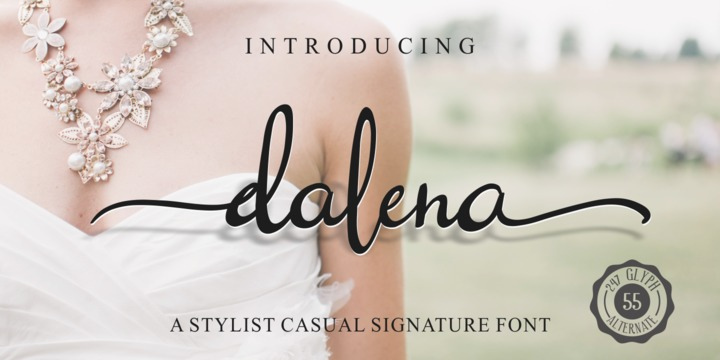
Dalena Font
Dalena Font is perfect for elegant lifestyle brands, sophisticated wellness centers, graceful beauty services, refined personal coaching, luxurious feminine boutiques, and upscale women's lifestyle magazines. Its refined character makes it ideal for sophisticated spa retreats, elegant event planning services, graceful dance studios, refined jewelry brands, luxurious skincare companies, and any project requiring graceful sophistication with contemporary femininity and elegant lifestyle appeal.
This font is exciting because it captures the essence of refined elegance and sophisticated femininity while delivering exceptional functionality for brands seeking to communicate grace, quality, and the kind of sophisticated lifestyle that modern women aspire to achieve. The elegantly crafted letterforms flow with natural beauty and confident sophistication, creating typography that feels both personally intimate and professionally distinguished, perfect for audiences seeking refined quality and elegant experiences.
The Dalena Font family typically includes Light, Regular, Medium, and Bold weights with sophisticated alternates, elegant ligatures, and refined decorative elements that enhance its graceful personality. This comprehensive collection enables lifestyle professionals to create distinguished brand systems that maintain elegant credibility while offering flexibility for various sophisticated applications requiring both graceful appeal and contemporary luxury market positioning.
Whether you're developing identity systems for luxury lifestyle brands, creating materials for sophisticated women's services, or designing promotional content for elegant wellness organizations, Dalena Font Free Download delivers the refined sophistication and elegant appeal that connects with discerning audiences seeking graceful quality and sophisticated experiences. Its elegant presence ensures memorable brand recognition across digital platforms and print materials, making it perfect for websites, mobile applications, and lifestyle campaigns that celebrate graceful living, sophisticated beauty, and the transformative power of elegant refinement with contemporary luxury standards and authentic sophisticated charm.